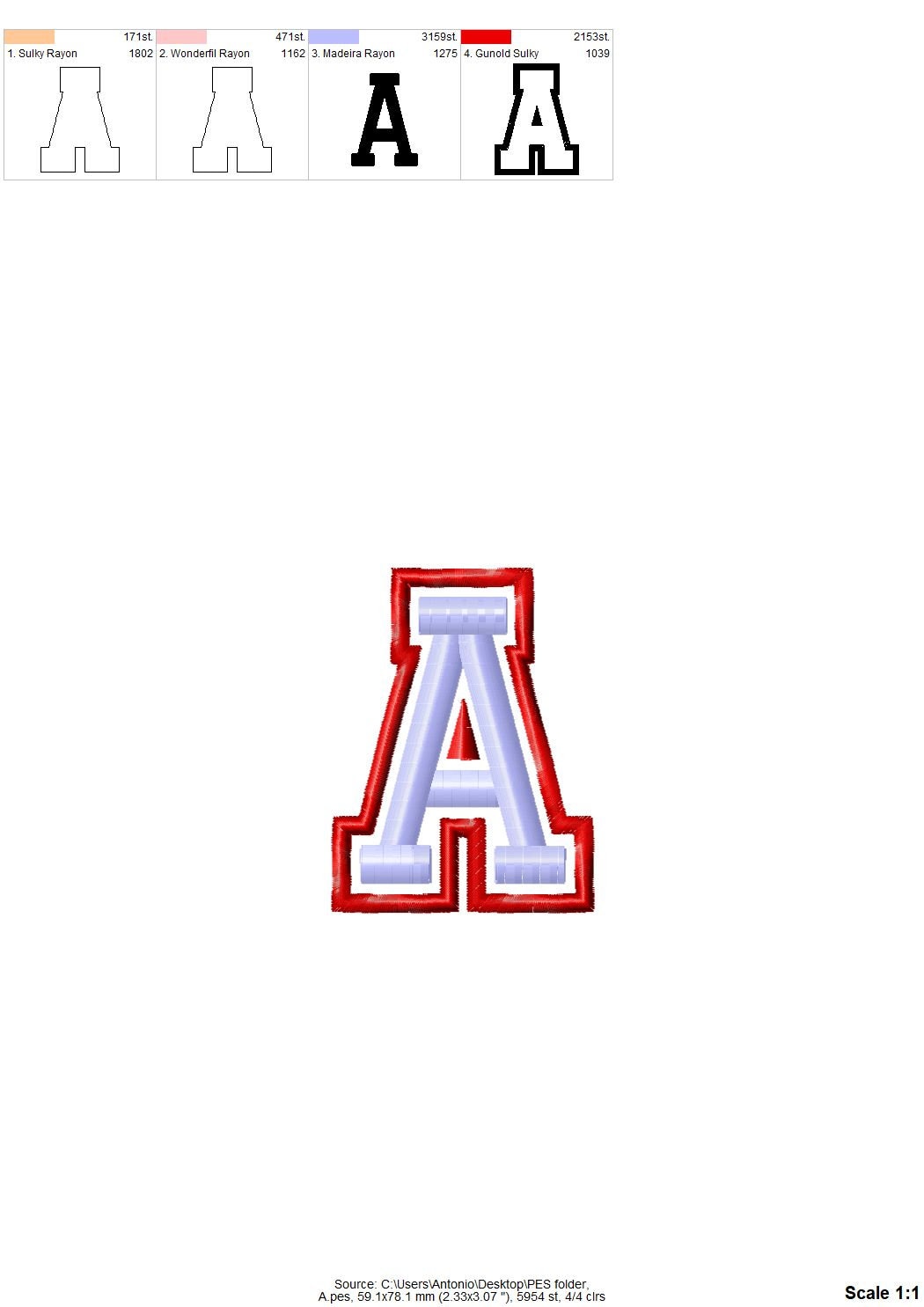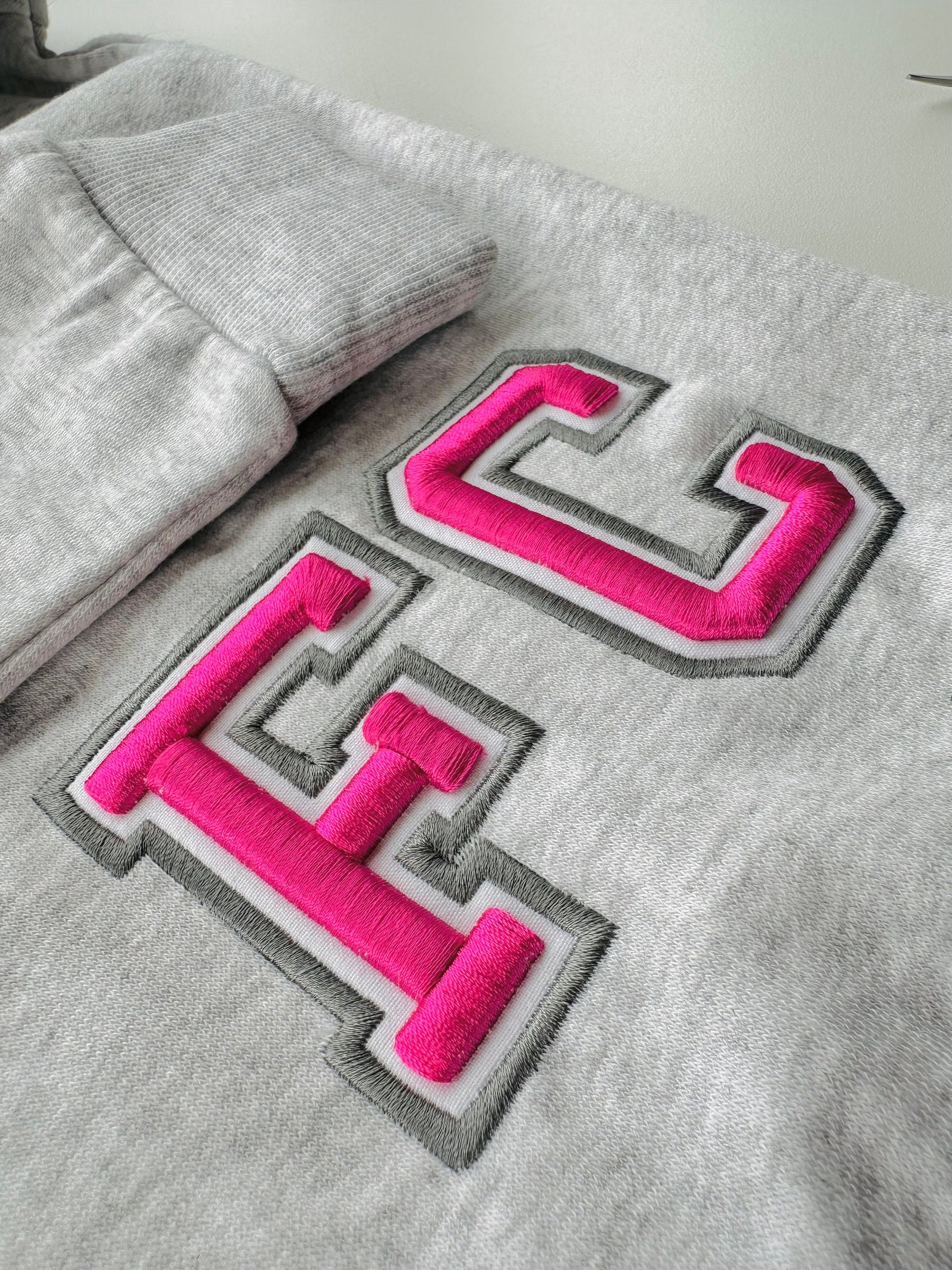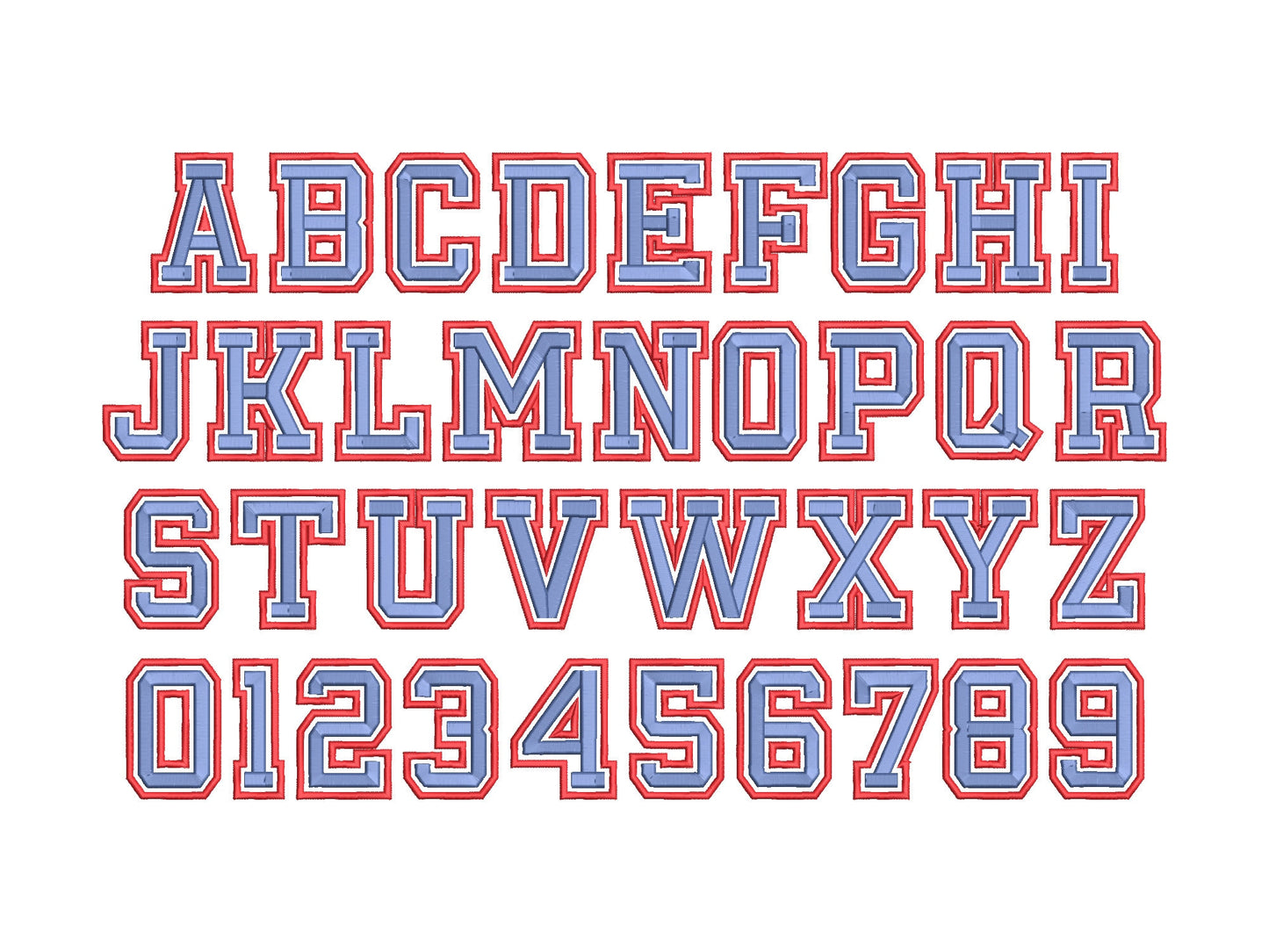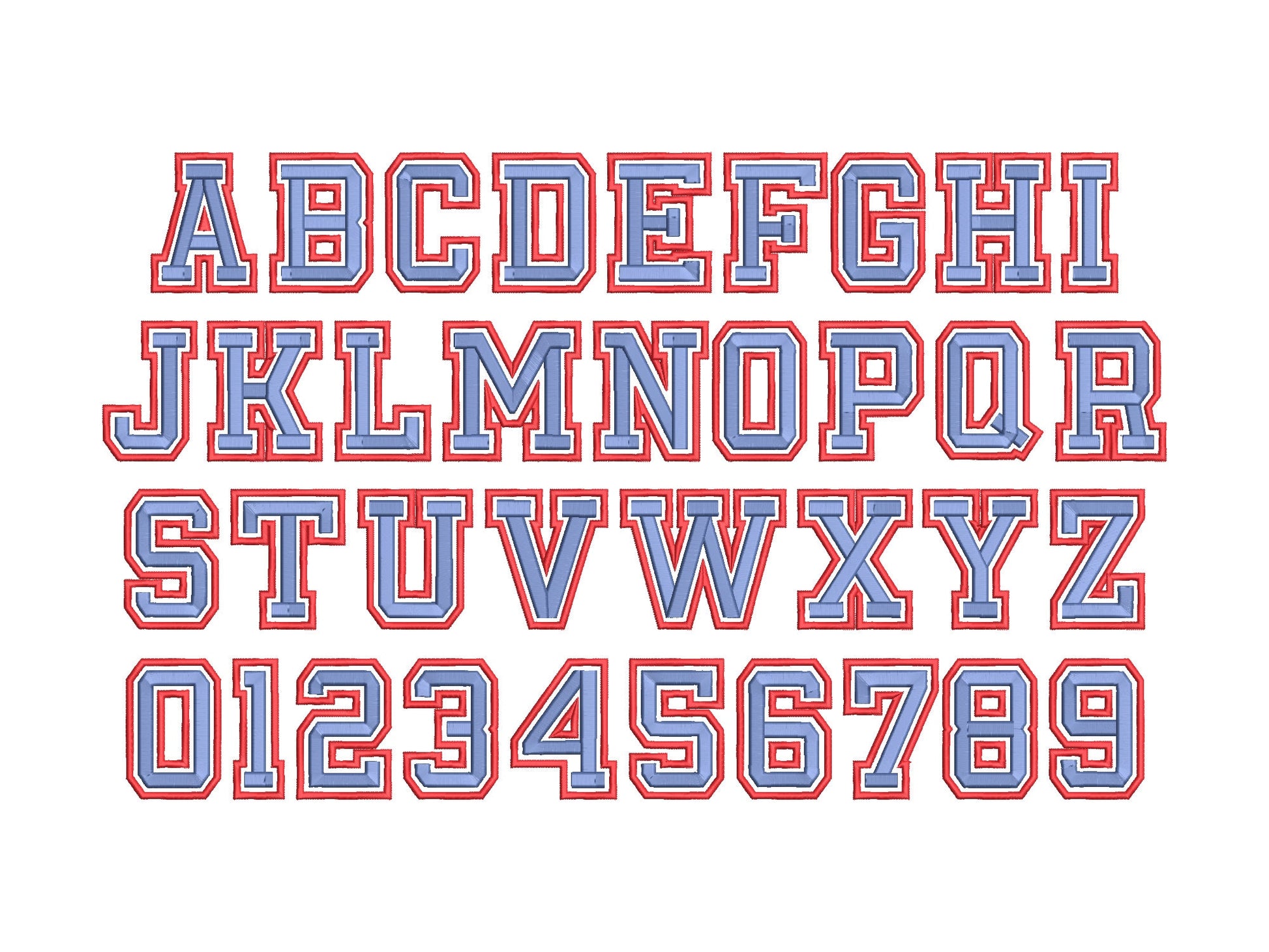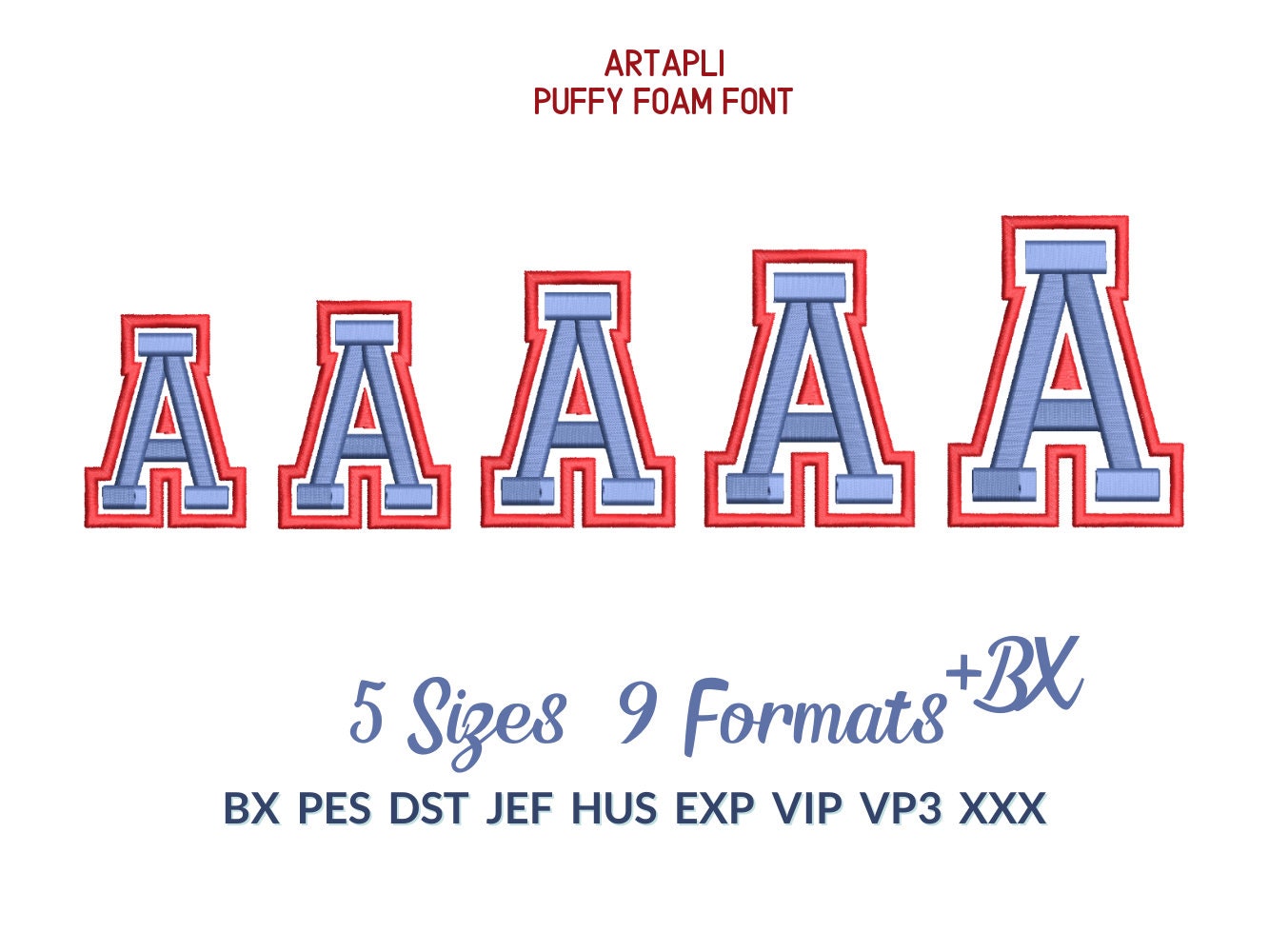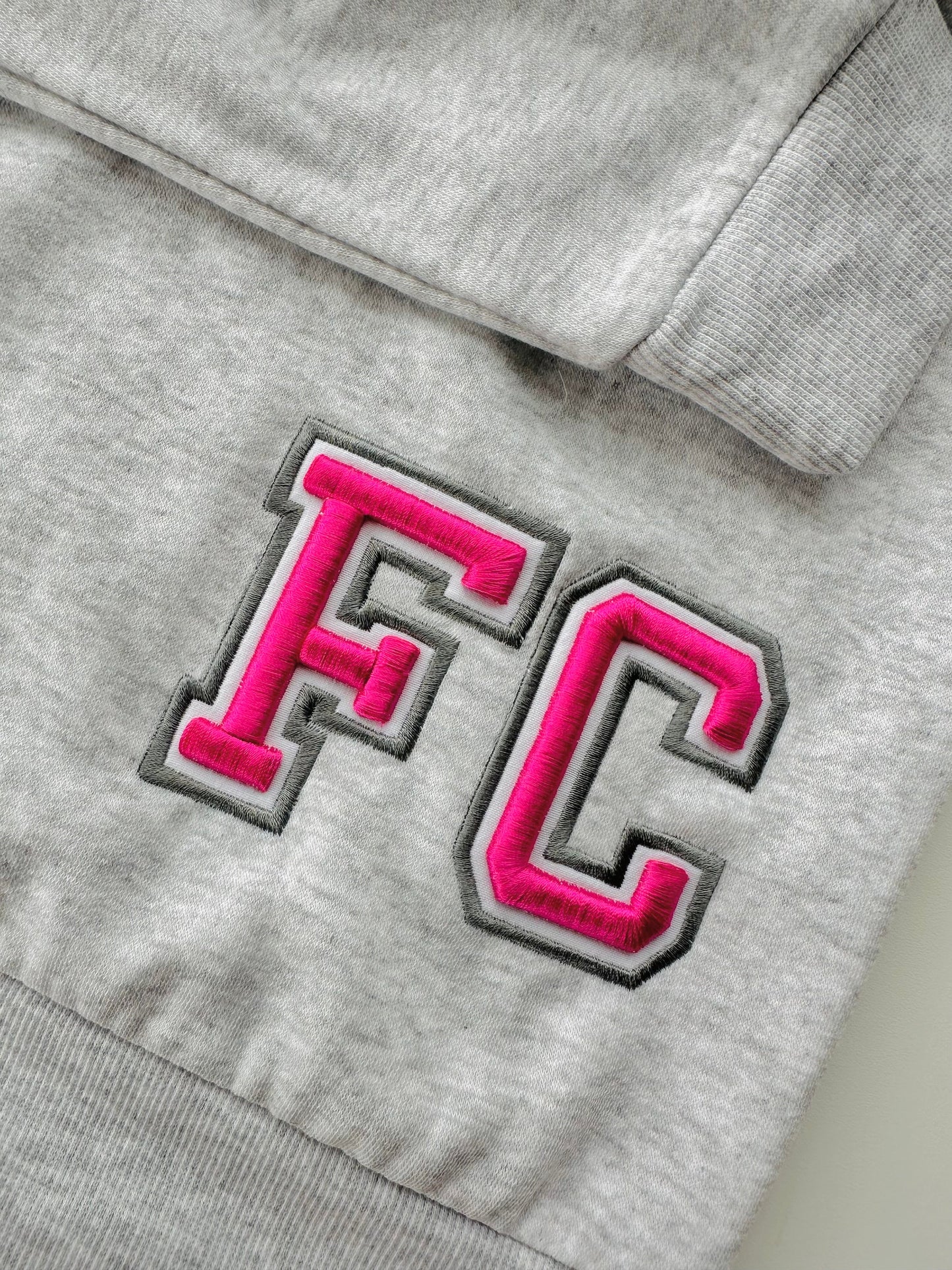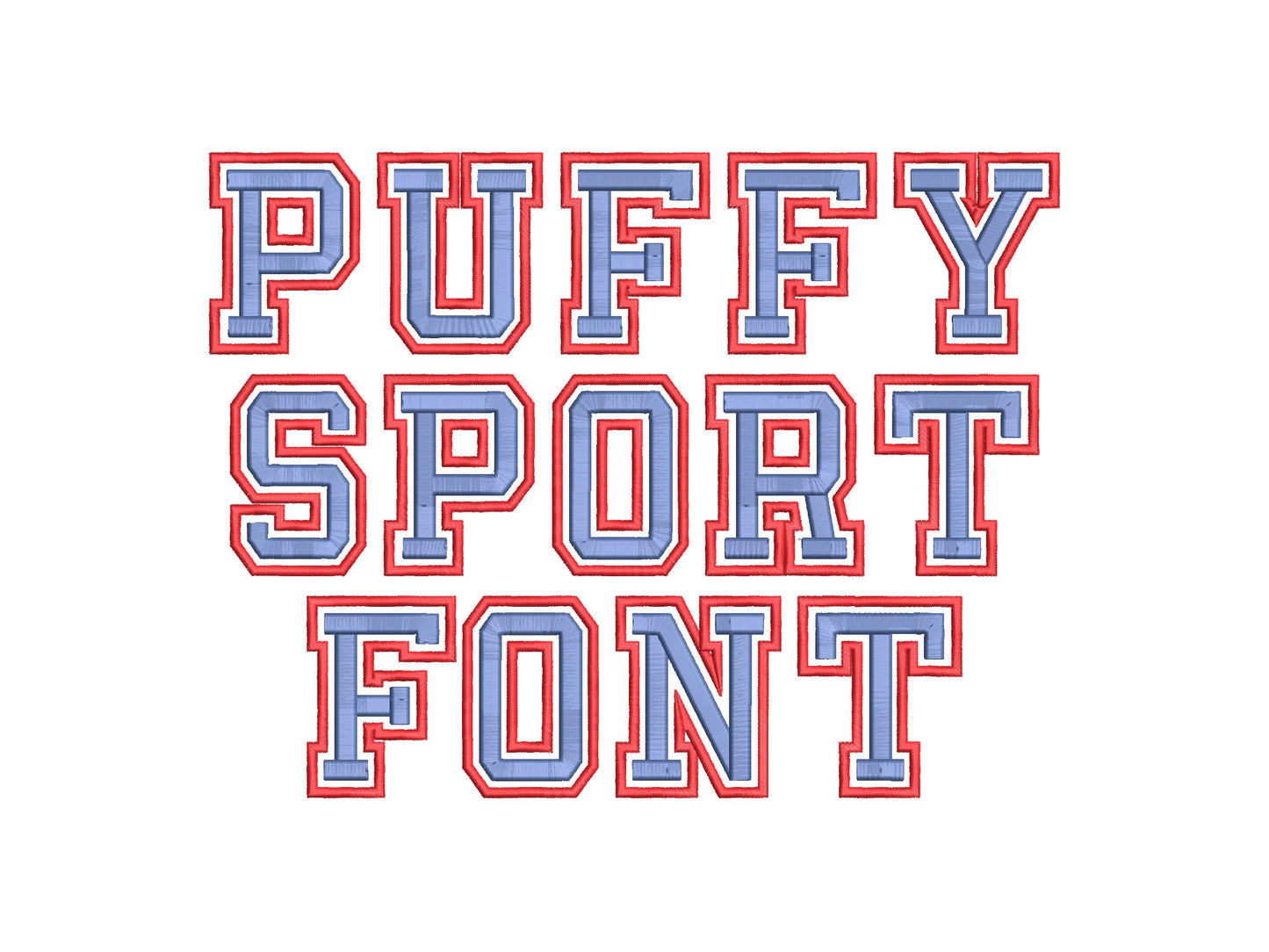
This design stitched very cleanly. I look forward to using it more and more.
This is a great file. It stitches very clean and easy to use.
This was my very first puff design even though I have been embroidering for over 25 years. It was very simple and turned out perfect! I used heat transfer glitter vinyl for the applique background. Would have shown up more on larger letters.
Sewed out perfectly! Would purchase again from seller!
Stitched perfectly. Just what I needed for my project
RERFECT FIT AND STUNNING DESIGN QUALITY IS EXCELLENT!
Stitch out was terrific! Very clean.
I love this font. Nice
These letters are beautiful for my sweat shirt
Design was good. would use them again
Just as described. Stitches beautifully!
Stitches out great! Perfect for college sweatshirts
stitch out great easy to use
The larger letters did not stitch out well and I have ruined inventory because the letters stitched so poorly.
Not gonna lie, I almost gave this 3 stars buuuut because it does stitch out fairly well I gave it 4. Here’s why 1: had to rearrange file bc on a single needle it catches if you do puff THEN satin 2: had to remove extra runs on H bc no matter how many times I ran it the xtra lines showed 3: some letters (not all) start their satin stitch for puff, stop, go to another spot to come back around and attach. Can make things funky when you have to split design if the split puff letters happen to be in the middle. Not to mention it just doesn’t make sense that it would do it on only certain letters l
Great! Loved the stitching! Neighbor loved her shirt.
This is well digitized for puff embroidery. I’m having fun using it.
Stitched out beautifully. Love it!
This design is perfect for what I wanted to make with puffy foam. Stitched out very nicely.
love the puff designs .
Excellent design and stitch fab.
I’m obsessed with this item. So cute!
There are random very long jump stitches that are not covered with other stitches. It needs editing out. Takes up time fixing it. Otherwise it sews nicely.
it great quality. we love it